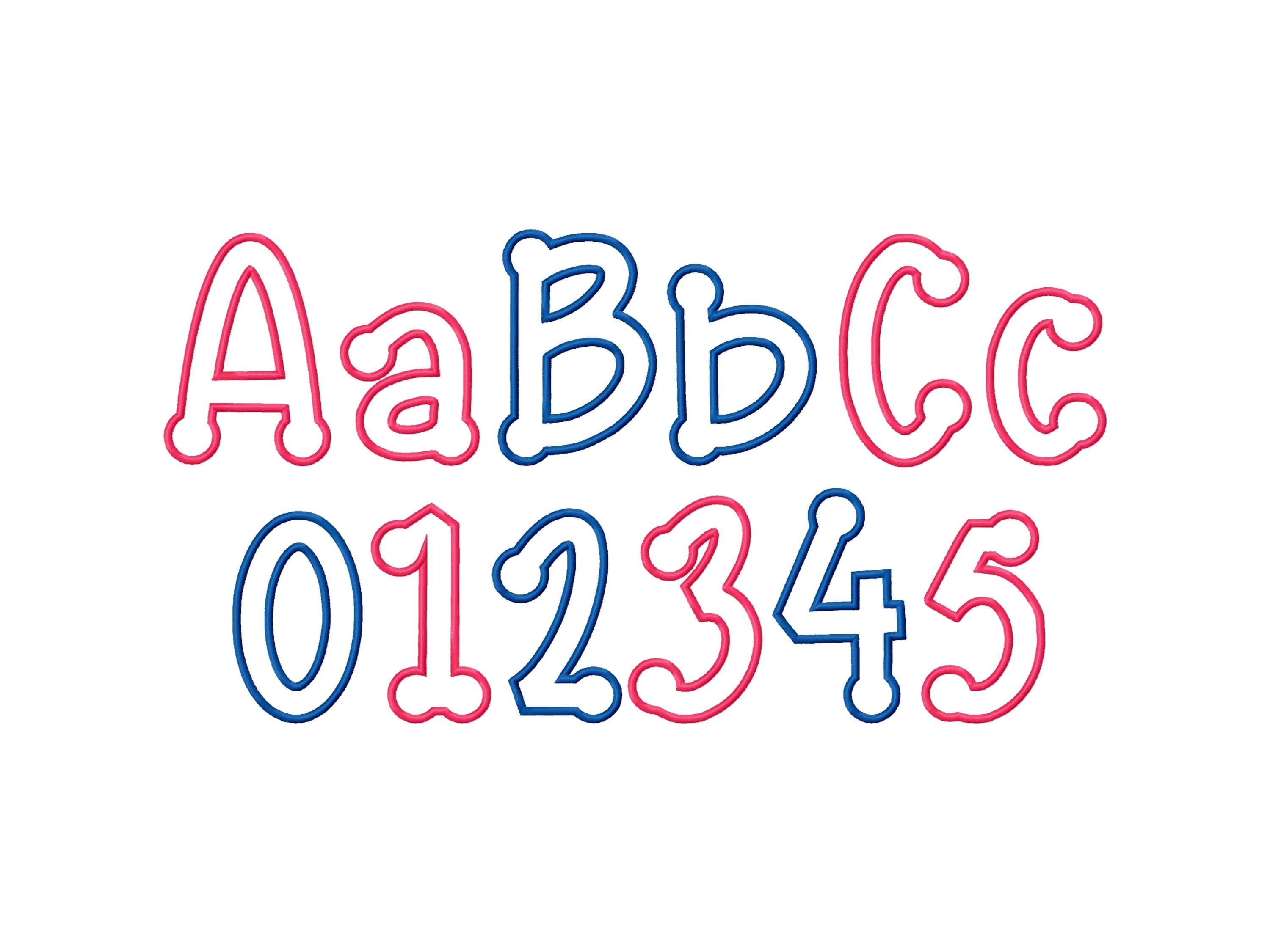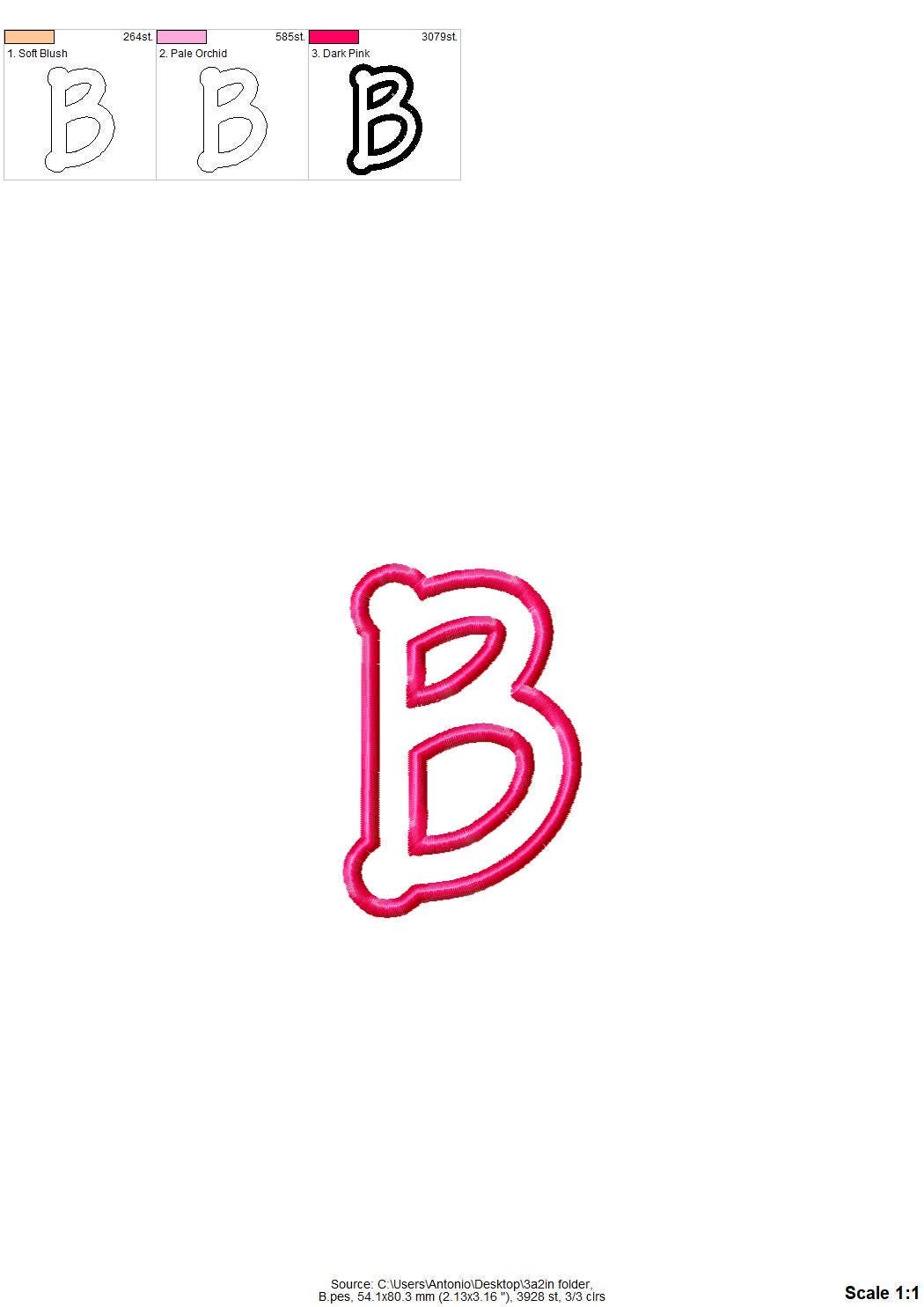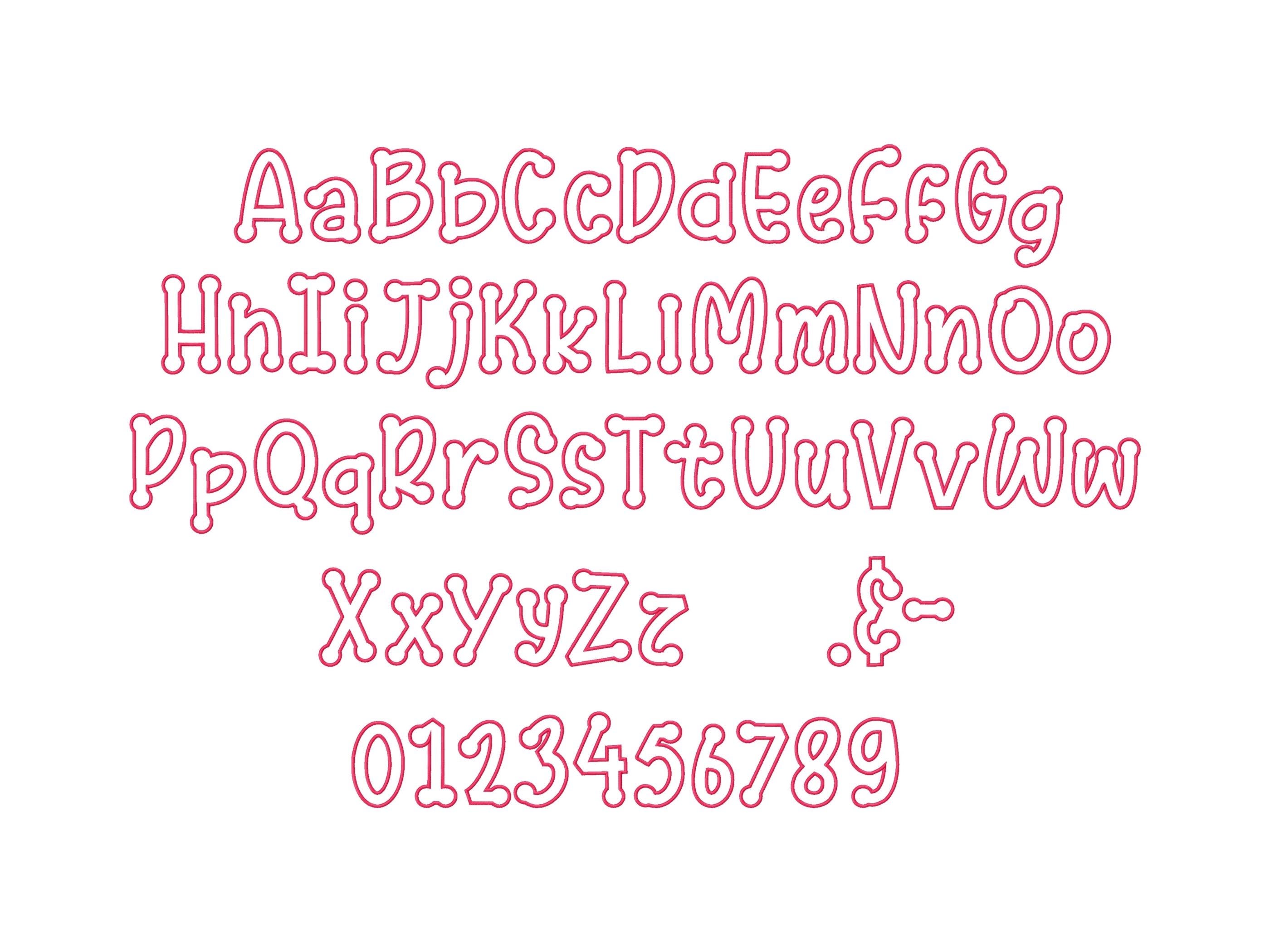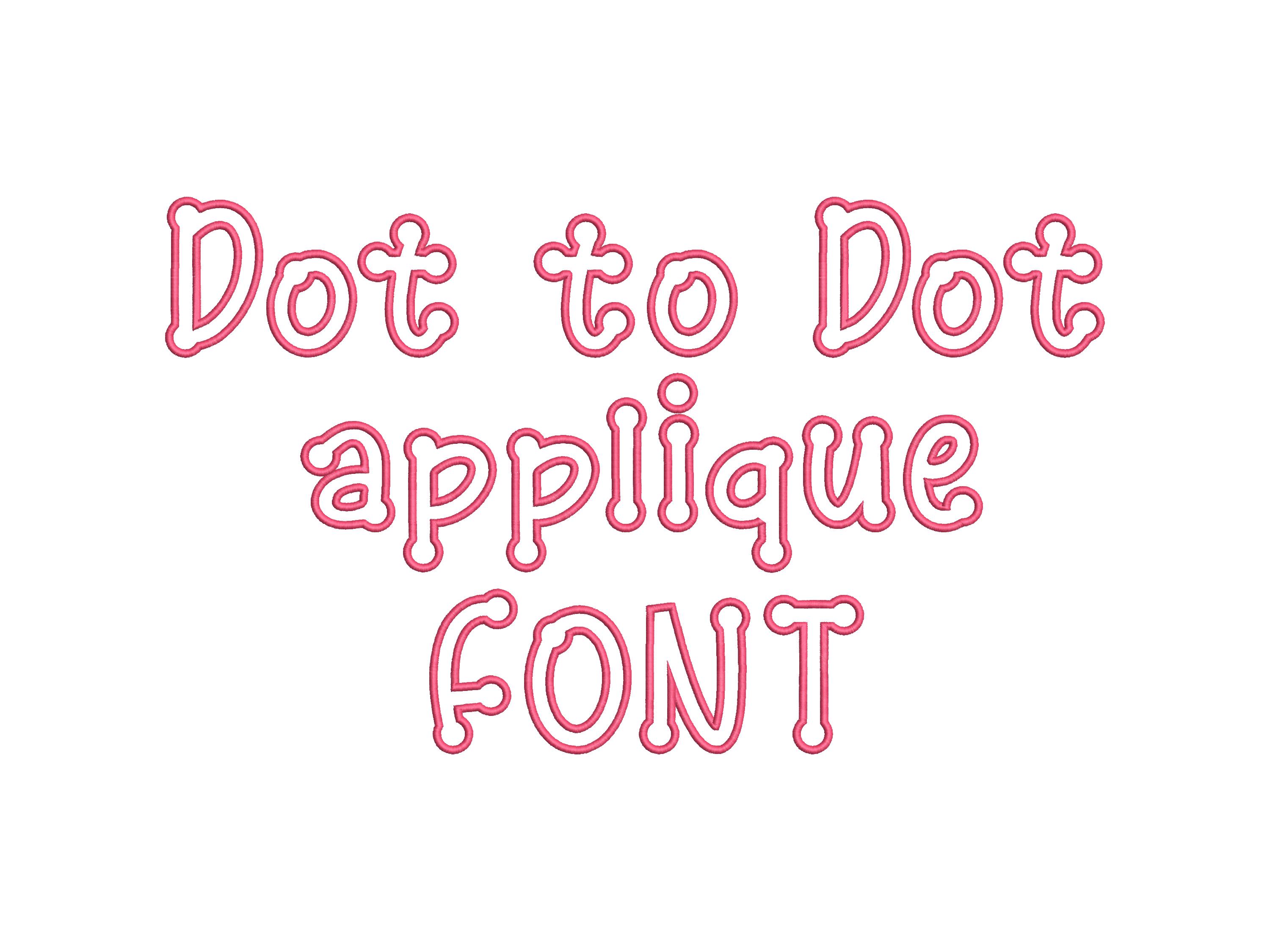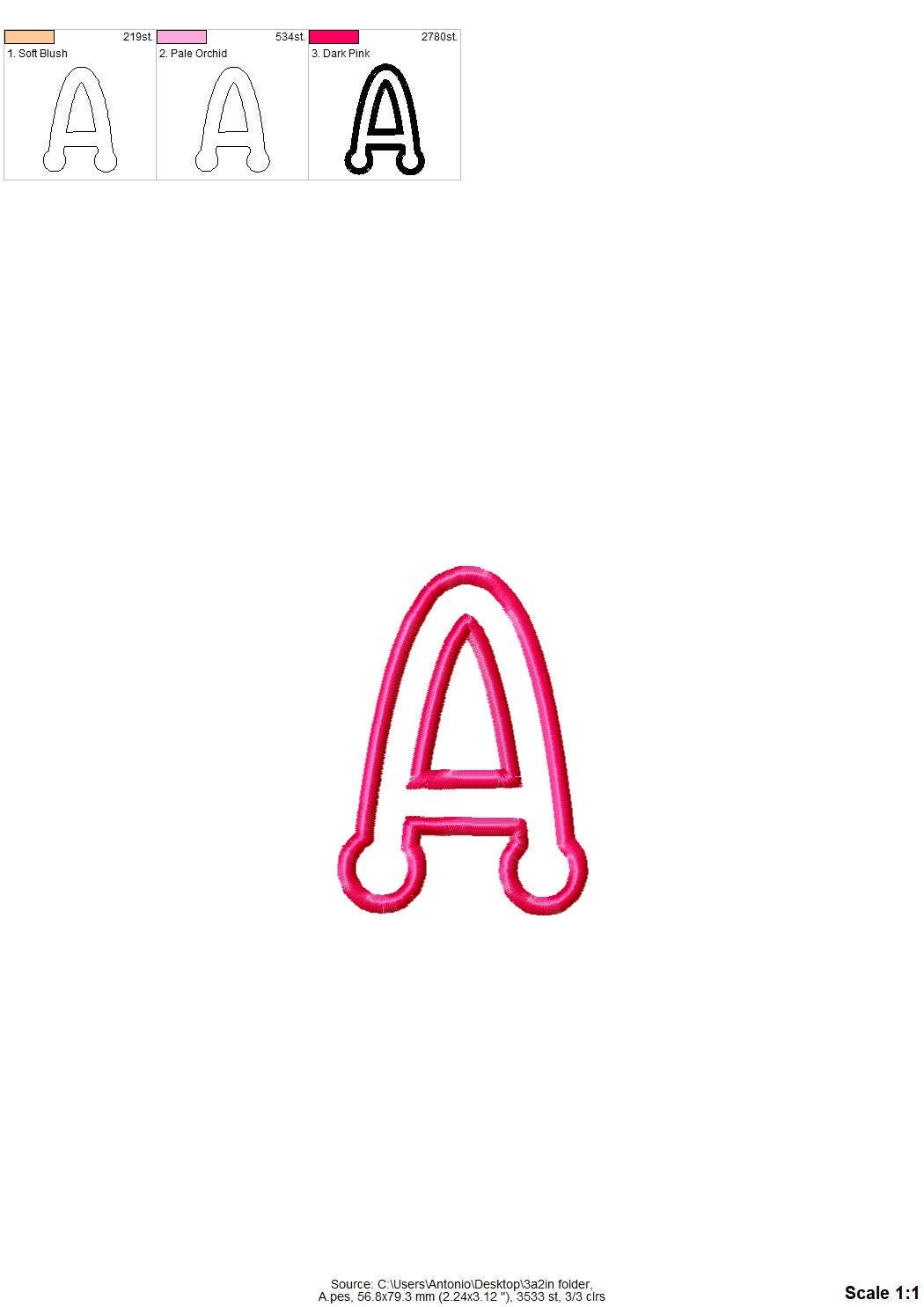
Dot to Dot Applique Font kids alphabet monogram machine embroidery designs small and medium sizes from 2 up to 4.5in letters and numbers, BX
Uppercase and lowercase letters, numbers, and punctuation.